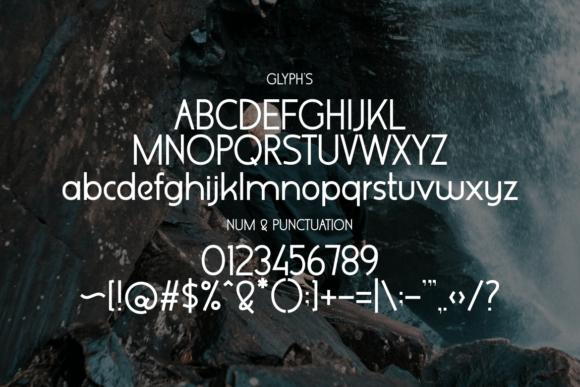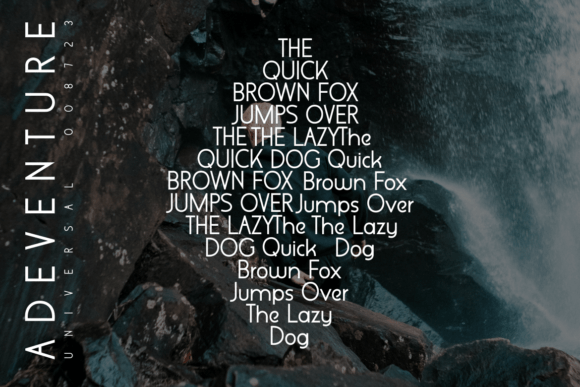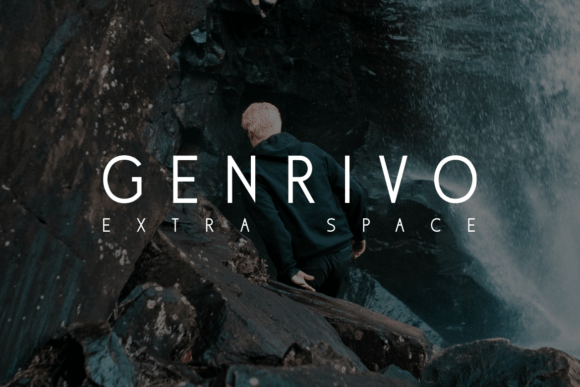
Unleash the Power of GENRIVO Font: Elevate Your Designs with Daring Dynamism
Are you tired of using the same old fonts in your designs? Do you want to add a spark of energy and excitement to your projects? Look no further than the GENRIVO font, a typeface that embodies the spirit of adventure and boldness. Specifically crafted for the world of magazines and high-octane editorials, GENRIVO is the perfect choice for designers who want to make a statement.
The Birth of GENRIVO: A Font Designed for Impact
GENRIVO was born out of a desire to create a font that would capture the essence of parkour, adventure, and bold typography. Its creators wanted to design a typeface that would inject a potent dose of audacity and ardor into every page, making it perfect for magazines, editorials, and any project that demands attention. And that’s exactly what they achieved with GENRIVO.
Signature Sharp and Spirited Design
The GENRIVO font boasts a signature sharp and spirited design that sets it apart from other typefaces. Its bold lines, sharp edges, and dynamic curves create a sense of movement and energy, making it perfect for headlines, titles, and any other text that needs to stand out. Whether you’re designing a magazine spread, a poster, or a website, GENRIVO is sure to make a lasting impression.
Ideal for Commanding Attention
GENRIVO is designed to command attention, making it perfect for projects that require a bold and daring approach. Its intense visual impact is ideal for:
- Exhilarating headlines that grab the reader’s attention
- Compelling feature spreads that draw the reader in
- High-octane editorials that demand to be noticed
- Any project that requires a bold and daring approach
Advancing the Thrill of Exploration
GENRIVO is more than just a font – it’s an experience. It’s an invitation to explore new horizons, to push boundaries, and to take risks. Whether you’re a designer, a craftsperson, or simply someone who appreciates bold typography, GENRIVO is the perfect choice for anyone looking to add a spark of excitement to their projects.
Brighten Your Projects with Fervor
GENRIVO is designed to brighten your projects with fervor, adding a sense of passion and energy to every page. Its bold and daring design is sure to:
- Elevate your designs to new heights
- Add a spark of excitement to your projects
- Make your text stand out in a crowded marketplace
- Create a lasting impression on your audience
Why Choose GENRIVO Font?
So why choose GENRIVO font for your next project? Here are just a few reasons:
- Unique Design: GENRIVO boasts a unique and daring design that sets it apart from other typefaces.
- High-Impact Typography: GENRIVO is designed to make a lasting impression, making it perfect for high-impact typography.
- Versatility: GENRIVO can be used in a variety of projects, from magazines and editorials to posters and websites.
- Easy to Read: Despite its bold design, GENRIVO is easy to read, making it perfect for body text and headlines.
| Font Name | Genrivo Font |
| Author | Monoletter |
In conclusion, GENRIVO font is a powerful and dynamic typeface that’s perfect for designers and craftspersons who want to add a spark of energy and excitement to their projects. Its bold and daring design makes it ideal for high-impact typography, and its versatility ensures that it can be used in a variety of projects. So why settle for ordinary fonts when you can unleash the power of GENRIVO?